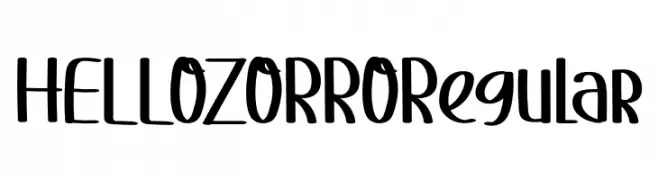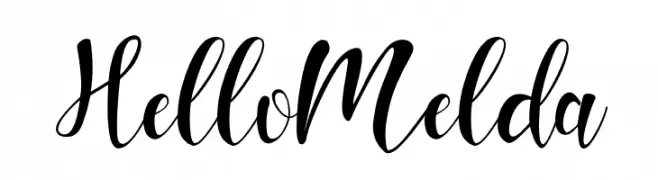
A decorative and elegant font with cursive and bold elements, perfect for artistic projects.
An elegant and fluid script font with graceful curves and a dynamic slant.
A playful and elegant script font with modern curves and flowing lines.
A playful, hand-drawn font with a whimsical and casual style.
A playful, handwritten font with tall, narrow letters and rounded edges.
A flowing, cursive font with elegant, interconnected letters and dynamic stroke variations.
A bold and expressive script font with elegant, flowing letterforms.
A bold, flowing script font with expressive, interconnected strokes.
An elegant, flowing script font with delicate, elongated strokes and ornate details.
A delicate and flowing script font with elegant, intricate curves.